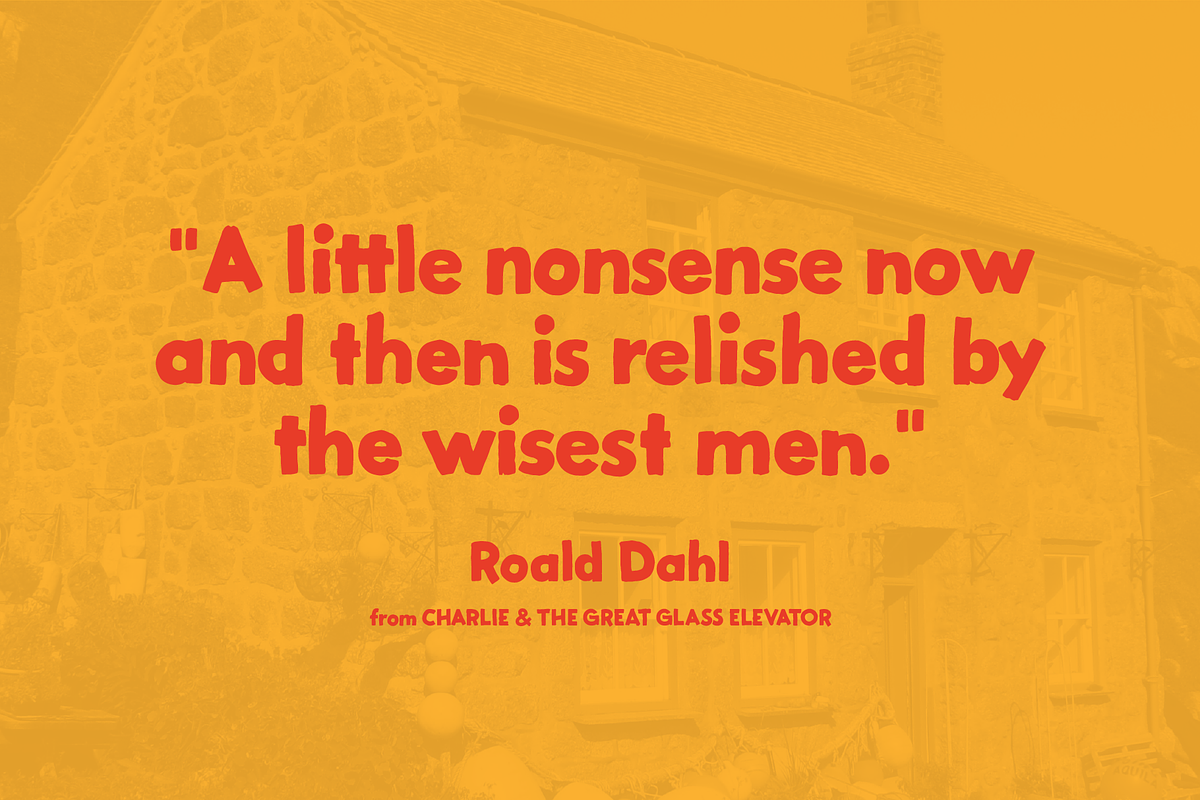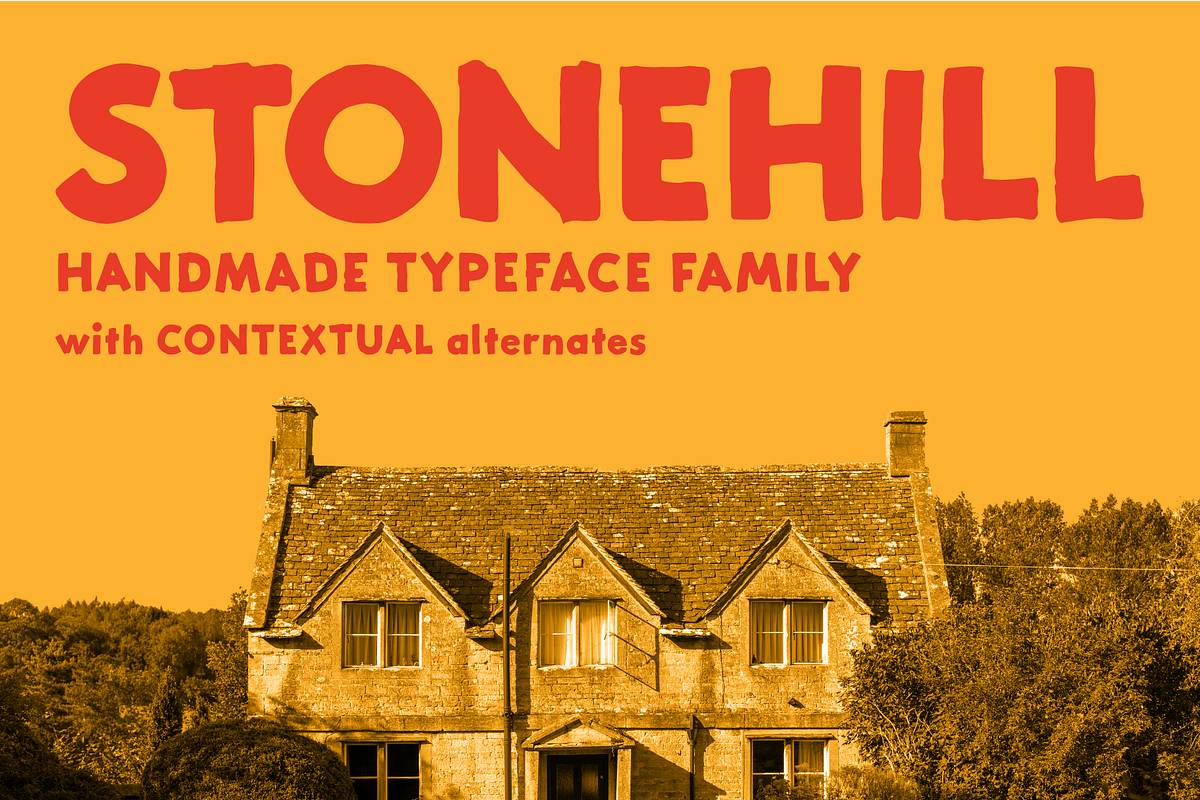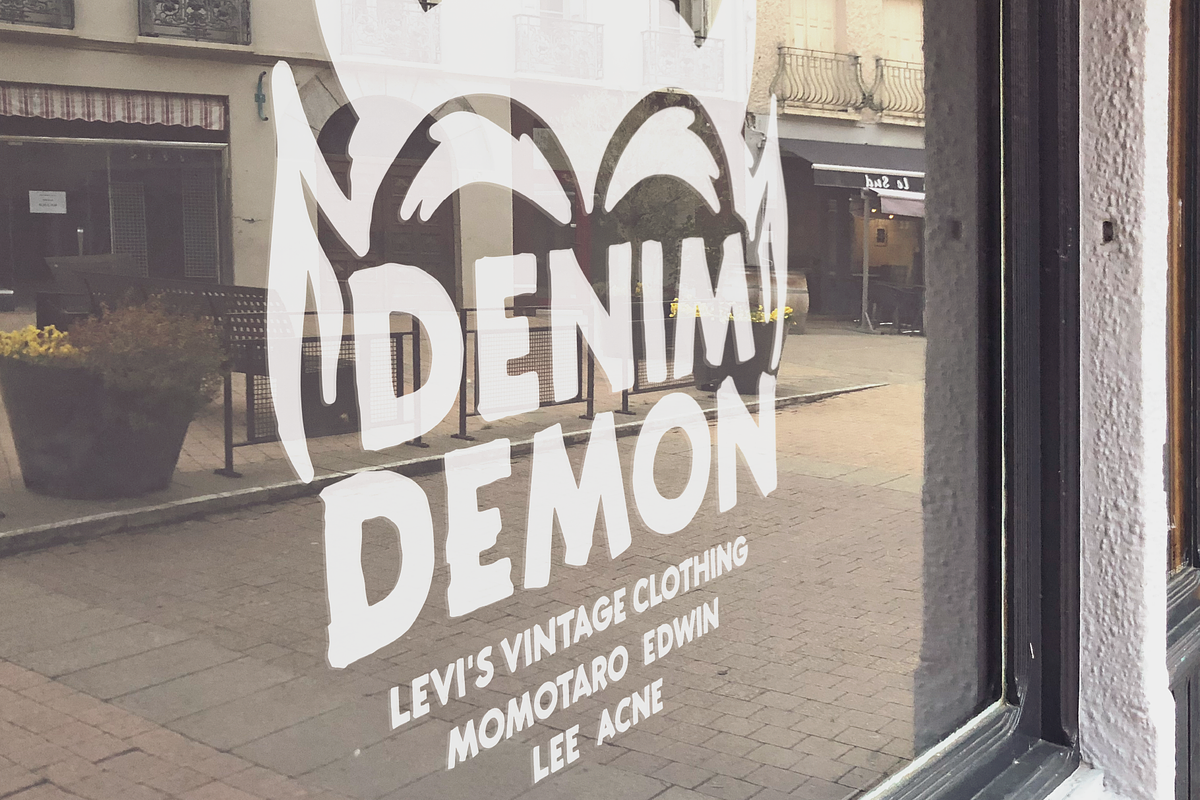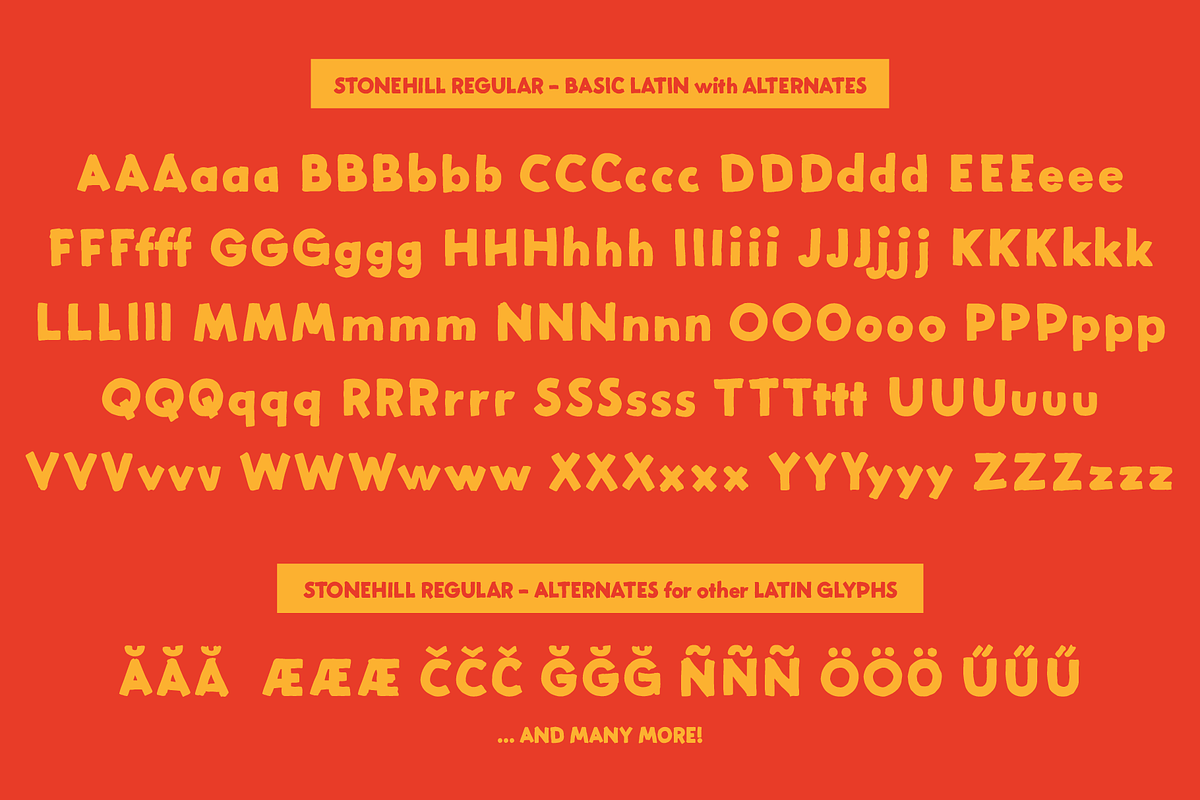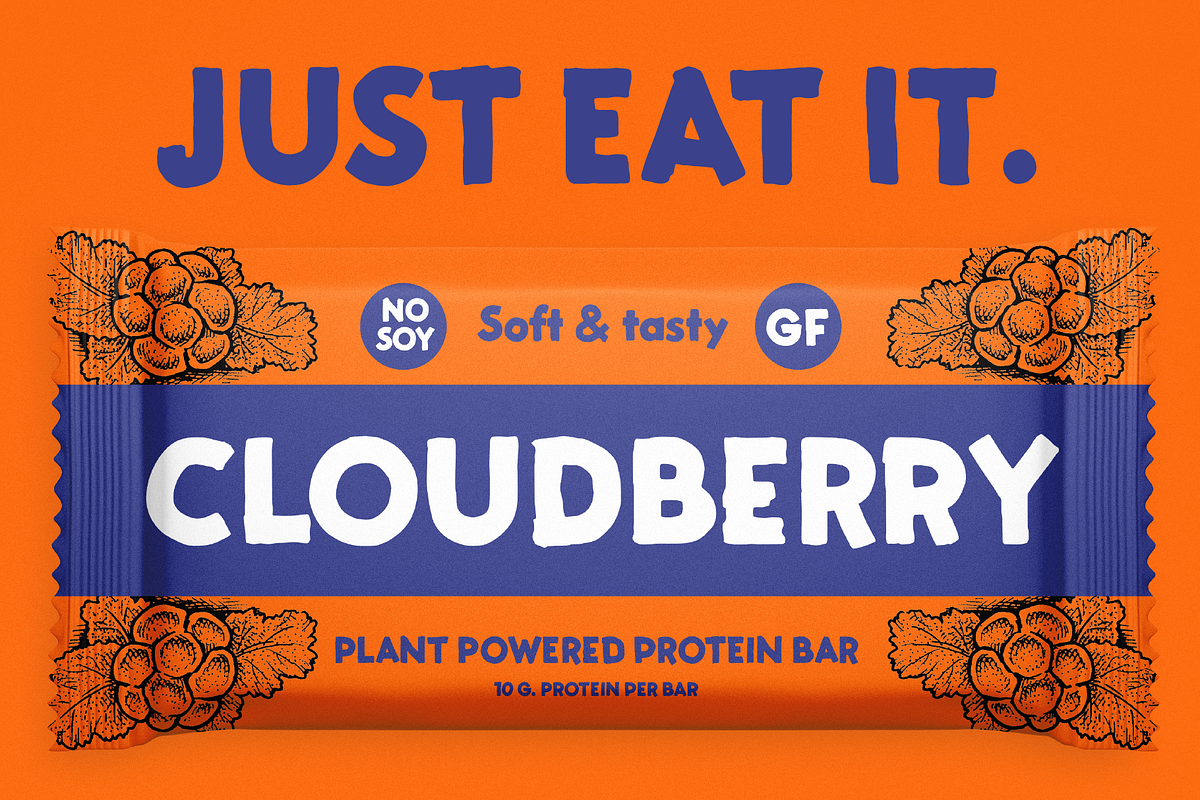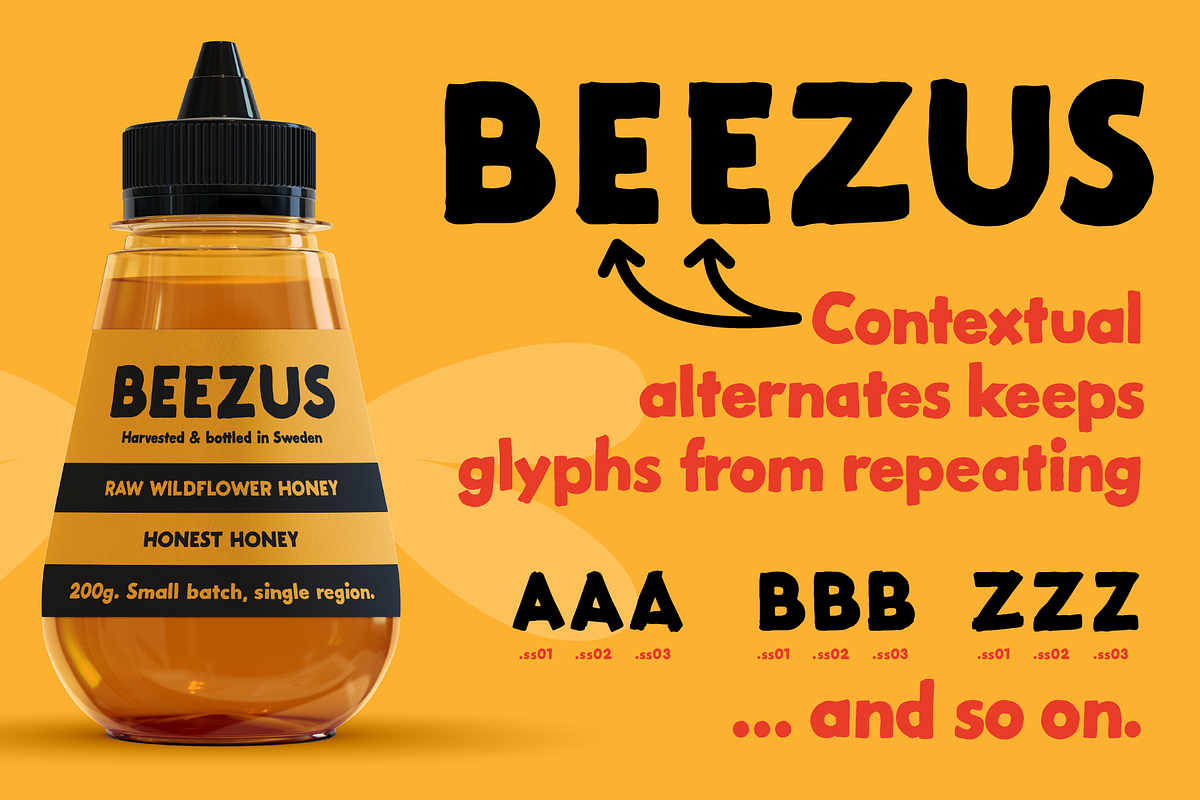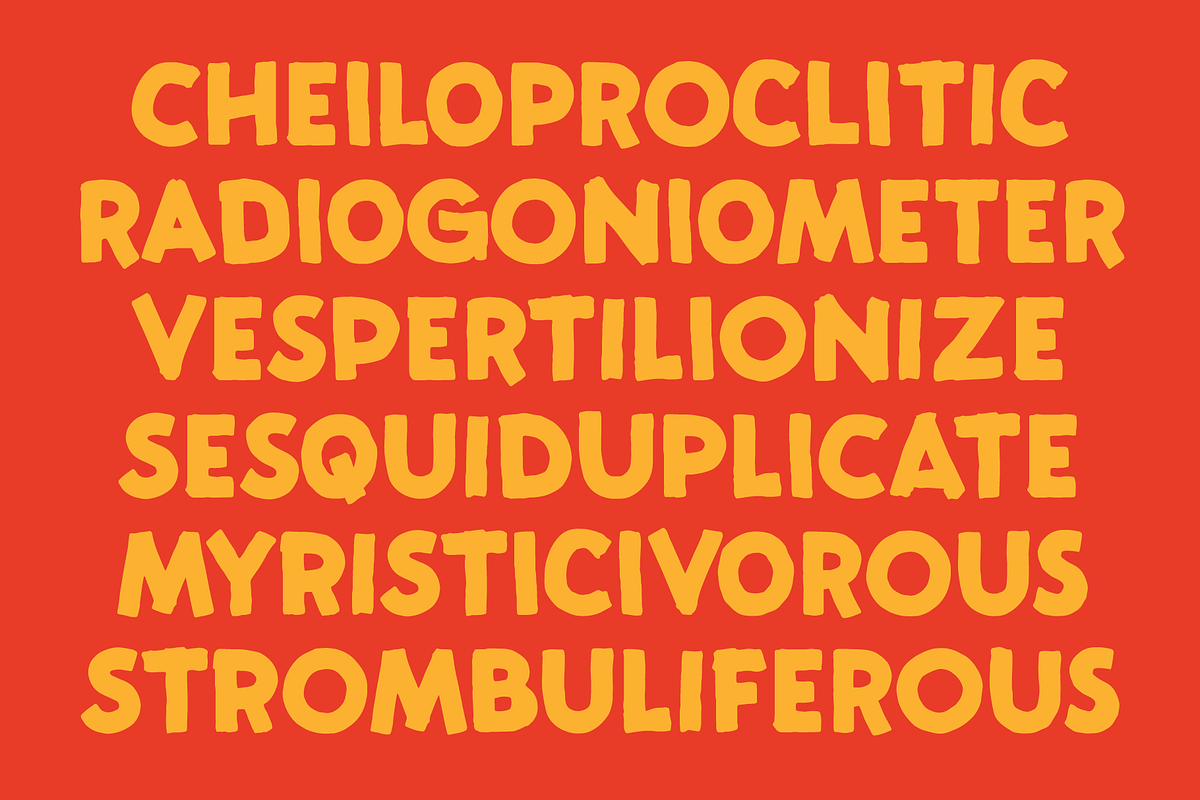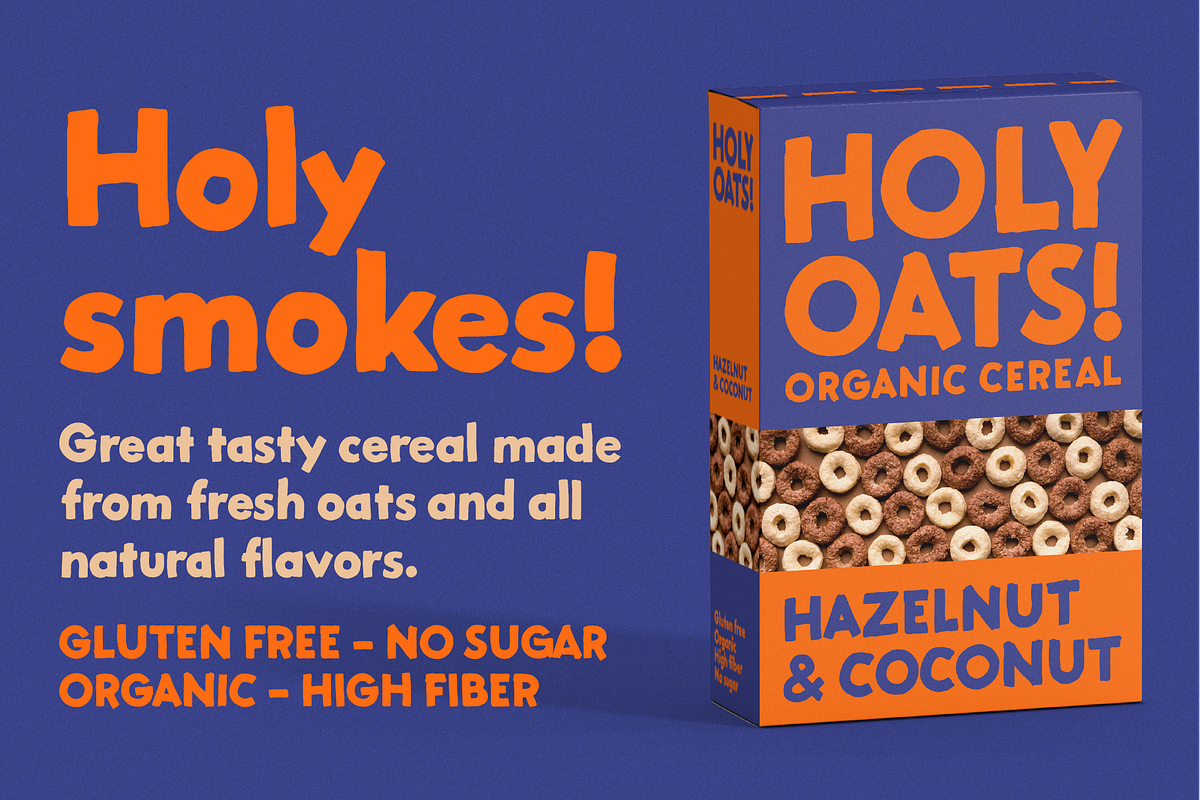
Stonehill
Stonehill is a bold handpainted sans serif typeface for display or packaging use.
Stonehill has 3 glyphs for each letter and with contextual alternates activated in apps that supports this it will cycle thru these alternates to keep the same glyphs from repeating too much.
Or, you can always pick and choose from the alternates manually to keep it fresh! Stonehill is available in two cuts - regular and oblique.